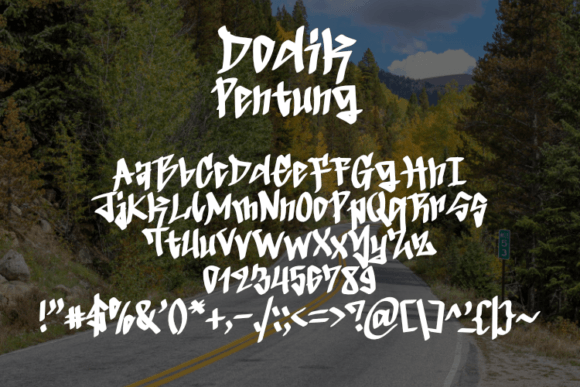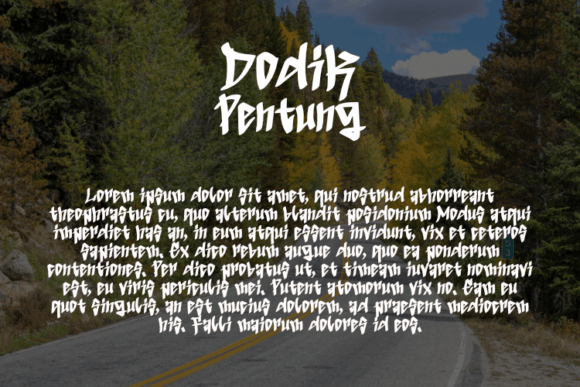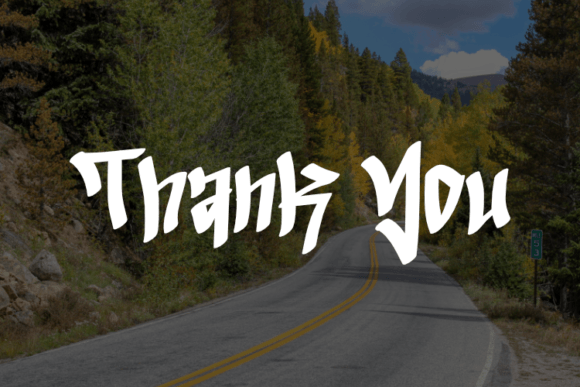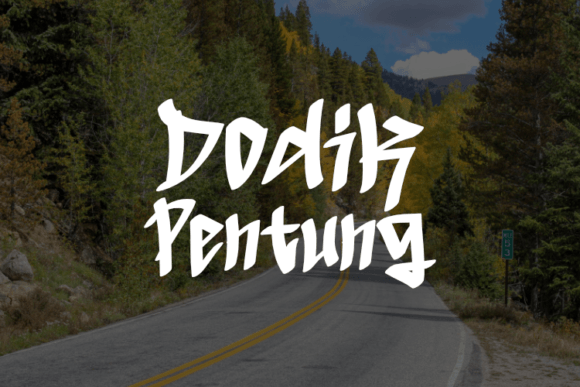
Introduction to Dodik Pentung Font
Introducing Dodik Pentung – a dynamically versatile font that serves as the perfect tool for crafting intricate and compelling designs on a wide range of products, including apparel such as t-shirts.
Immaculately compatible with all software, it seamlessly integrates with your design process, pushing the boundaries of creativity in every project With its multifaceted usability, Dodik Pentung metamorphoses your ideas into captivating designs primed to impress.
Dodik Pentung Font offers exceptional quality and versatility, making it a valuable addition to your design toolkit. Whether you’re creating for personal projects or commercial use, Dodik Pentung Font delivers professional results.